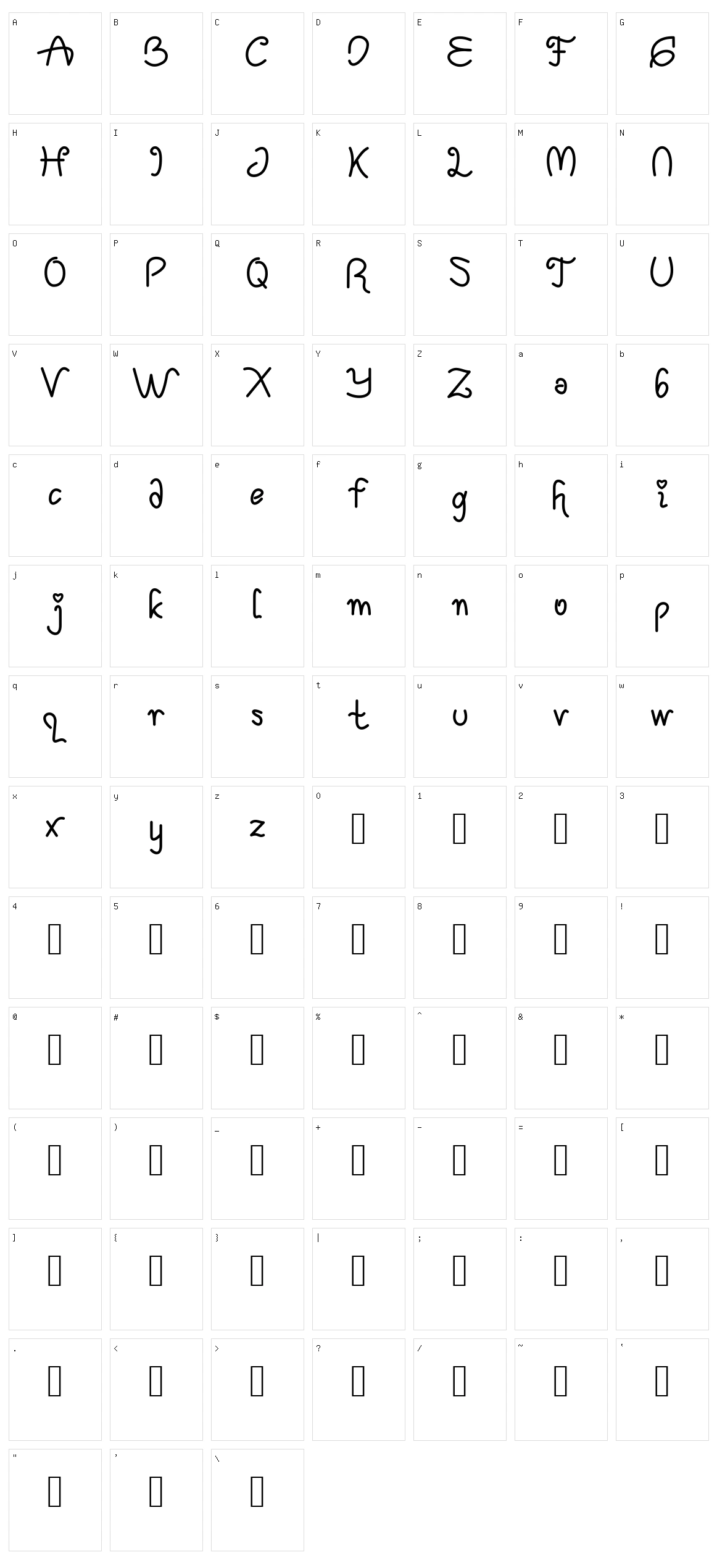
The free font Klenthing is carefully designed by Rohmat Sidiq Mustaqim, showcasing a thoughtful balance of creativity and usability and falls under the Script font style. When you download the ZIP file, it contains only 11.89 KB of font files, making it lightweight and quick to download. Please review the license details below to understand permitted usage and distribution rights. If license information is not available, we recommend using this font for personal projects only or contacting the author directly for commercial usage permissions.